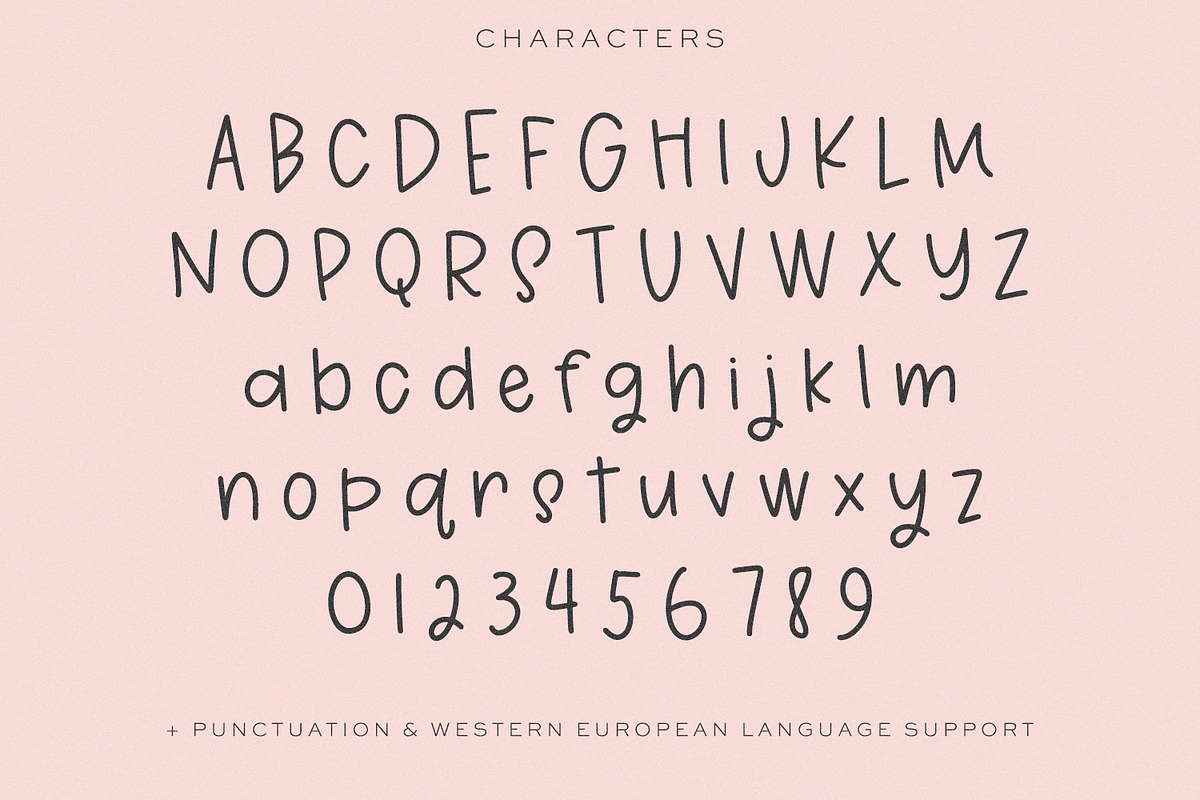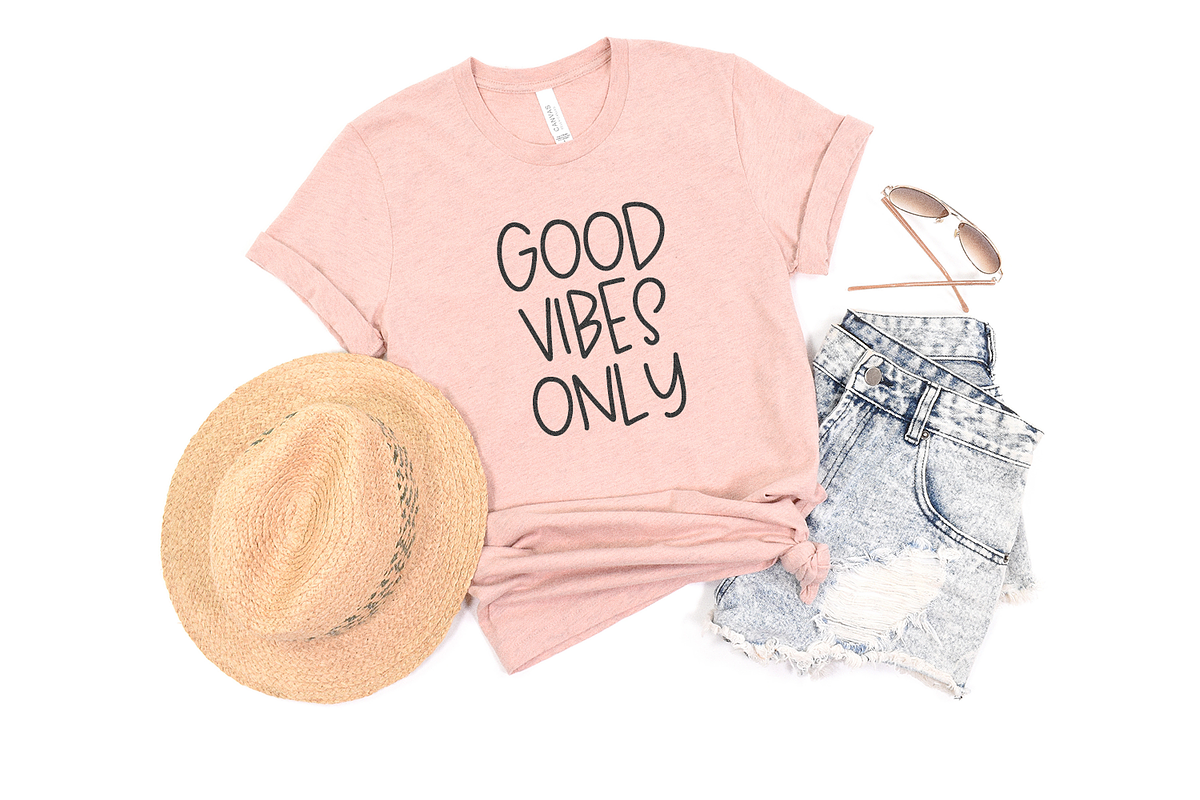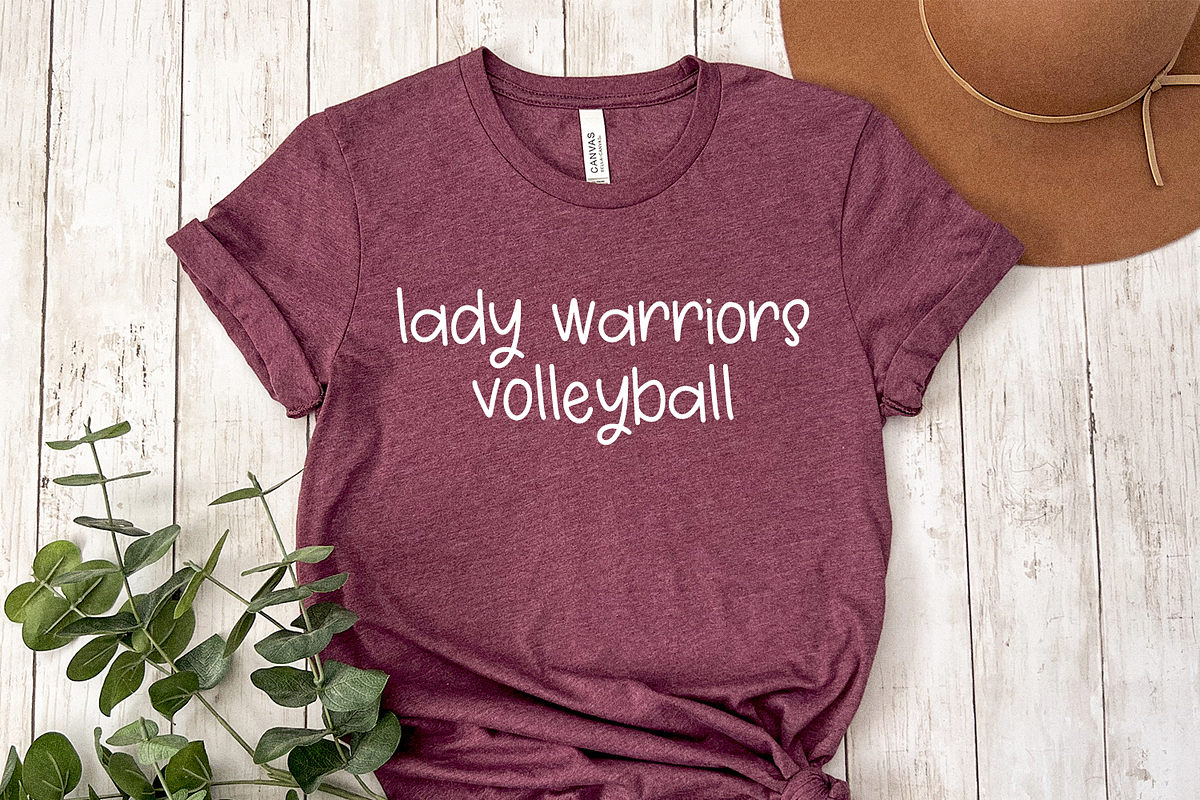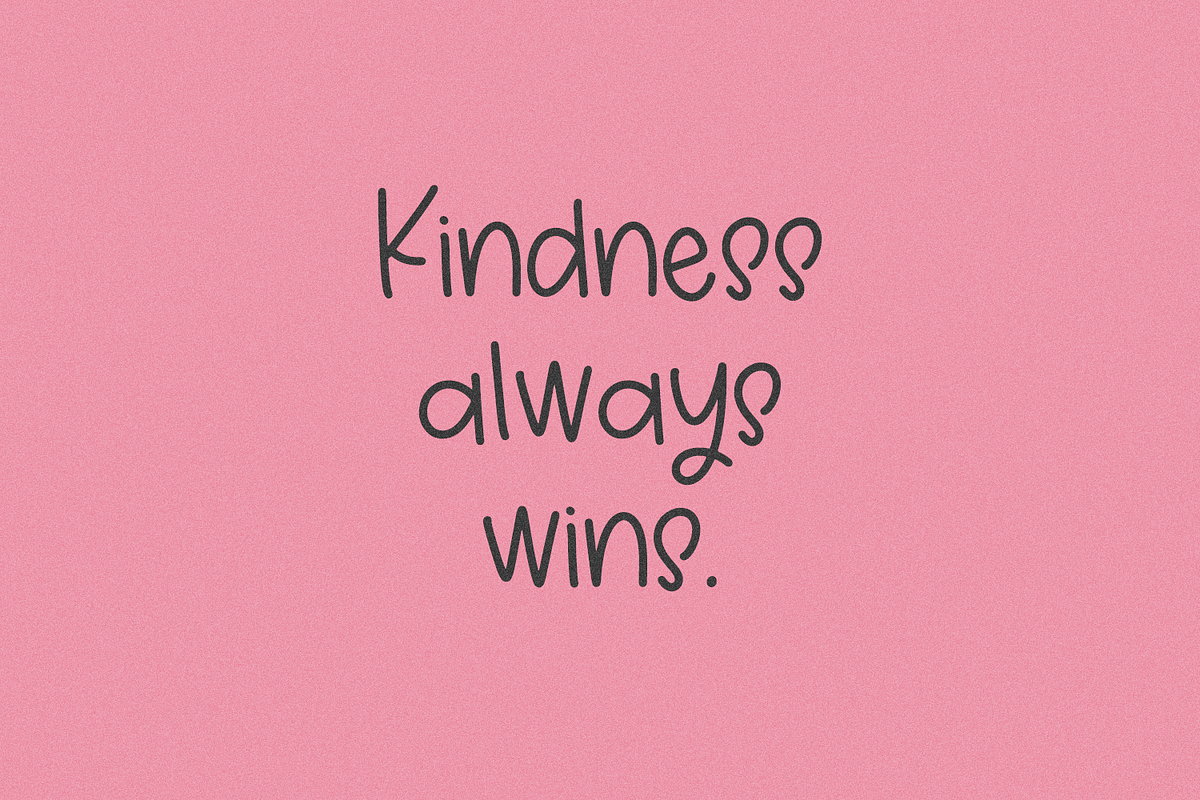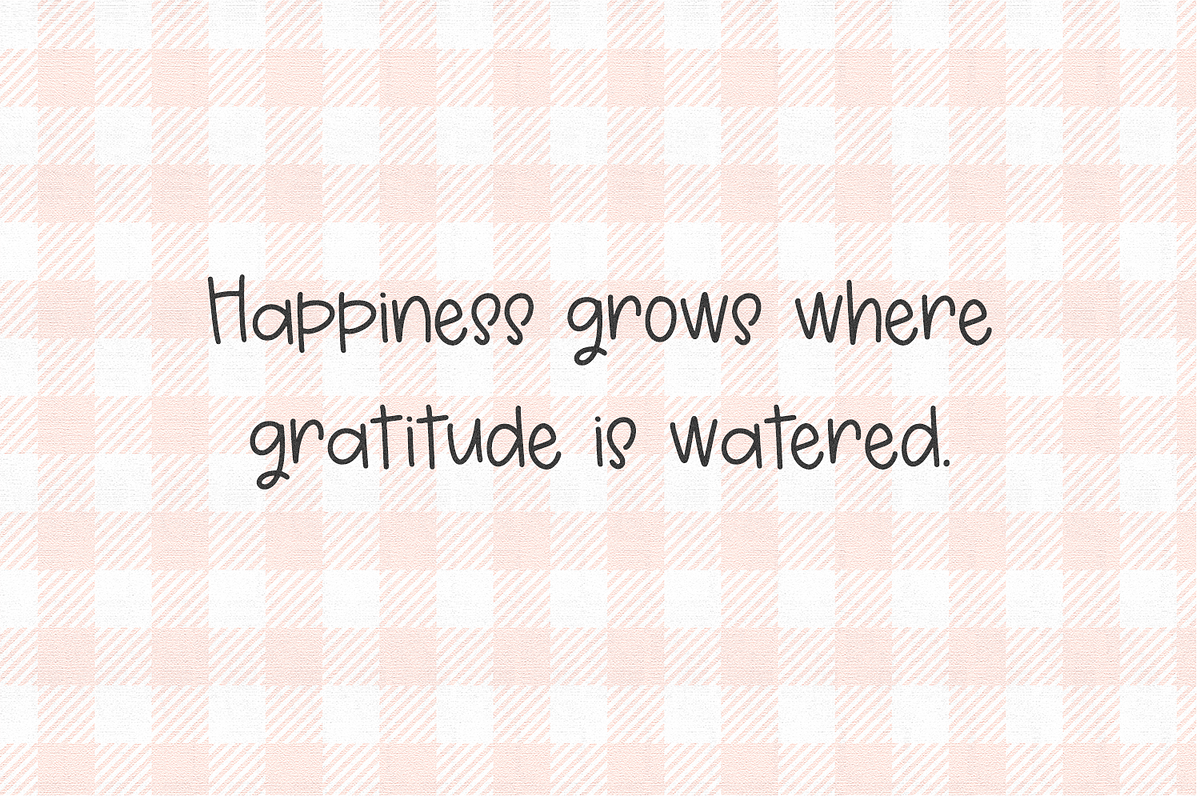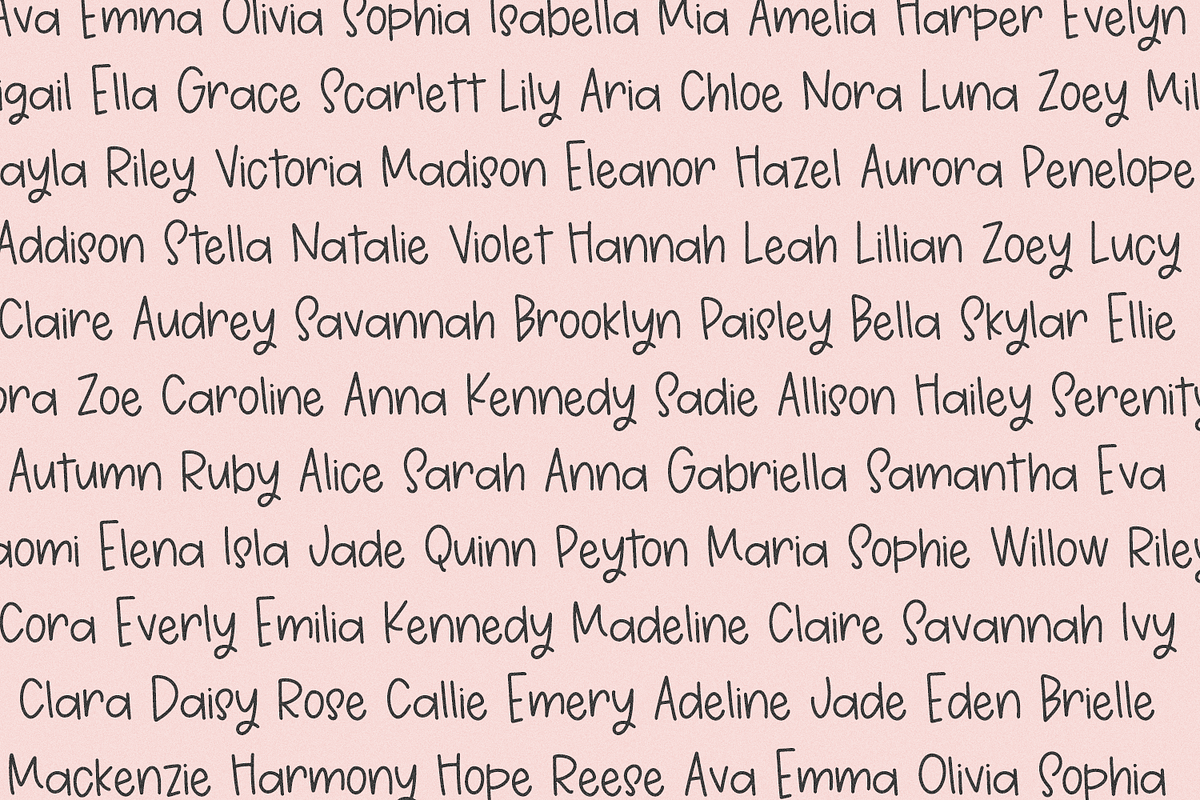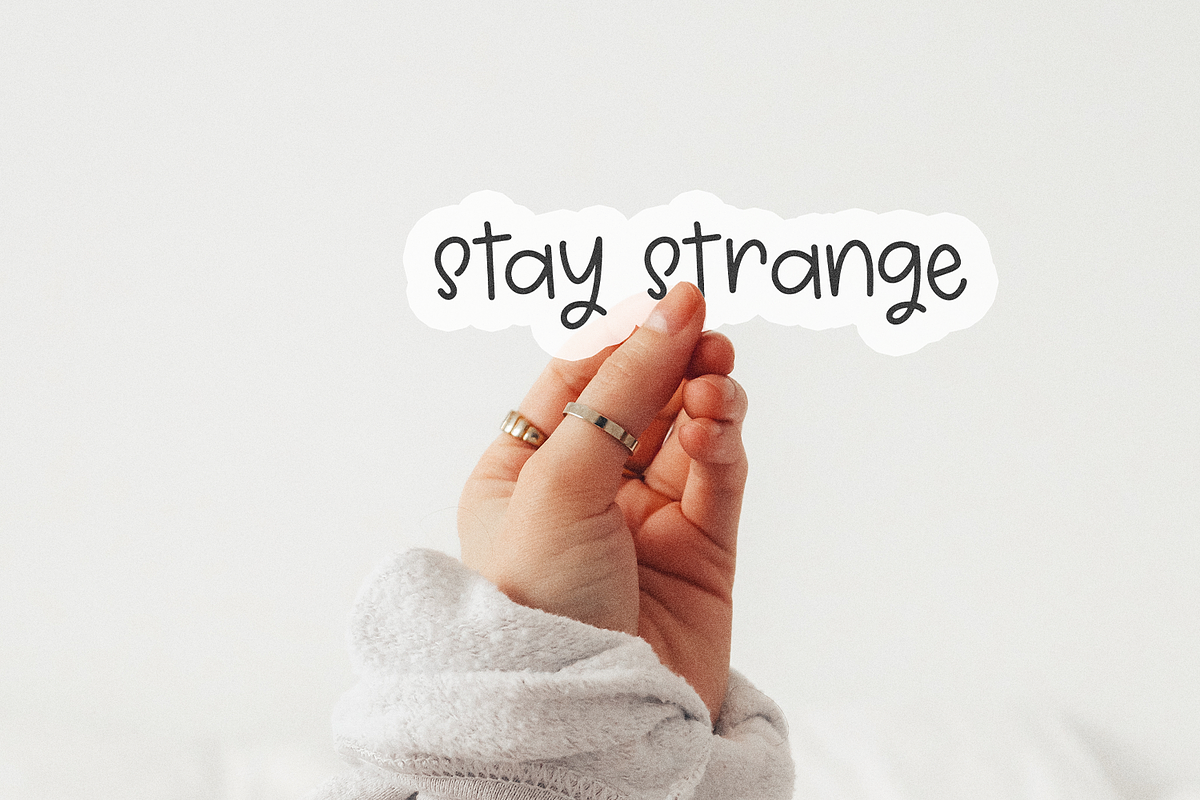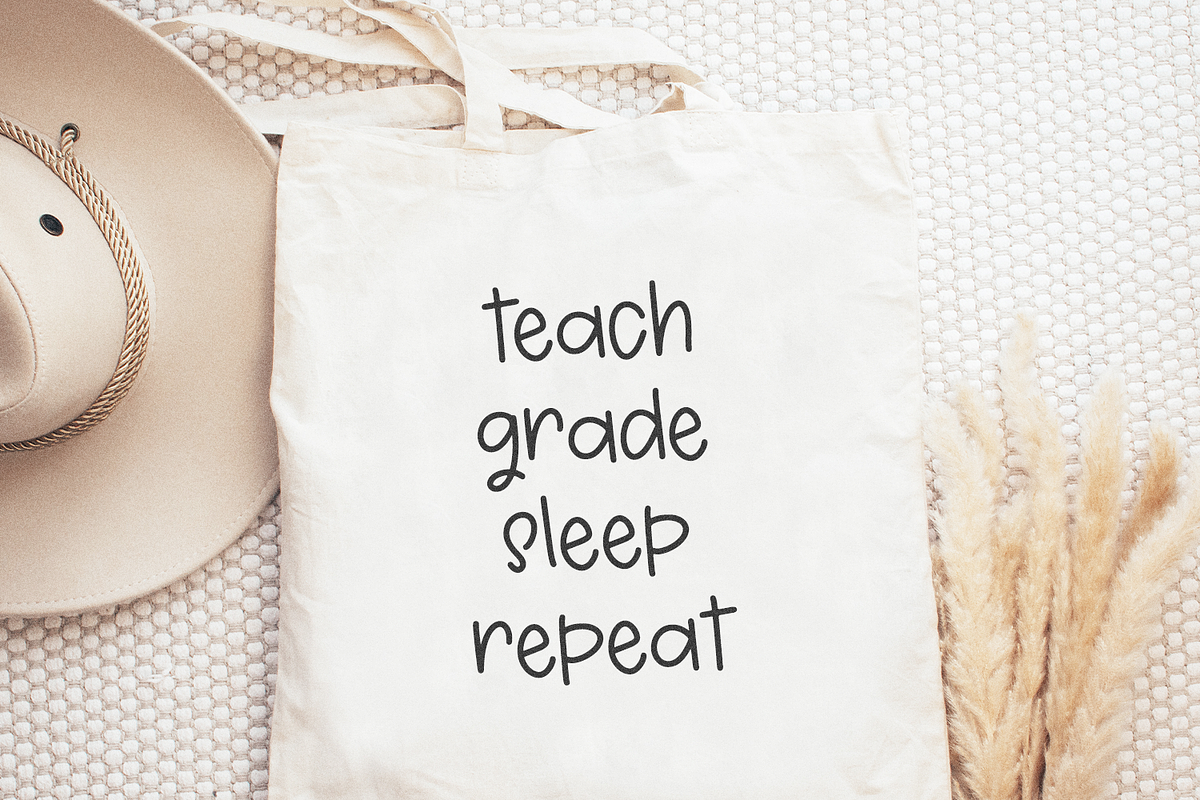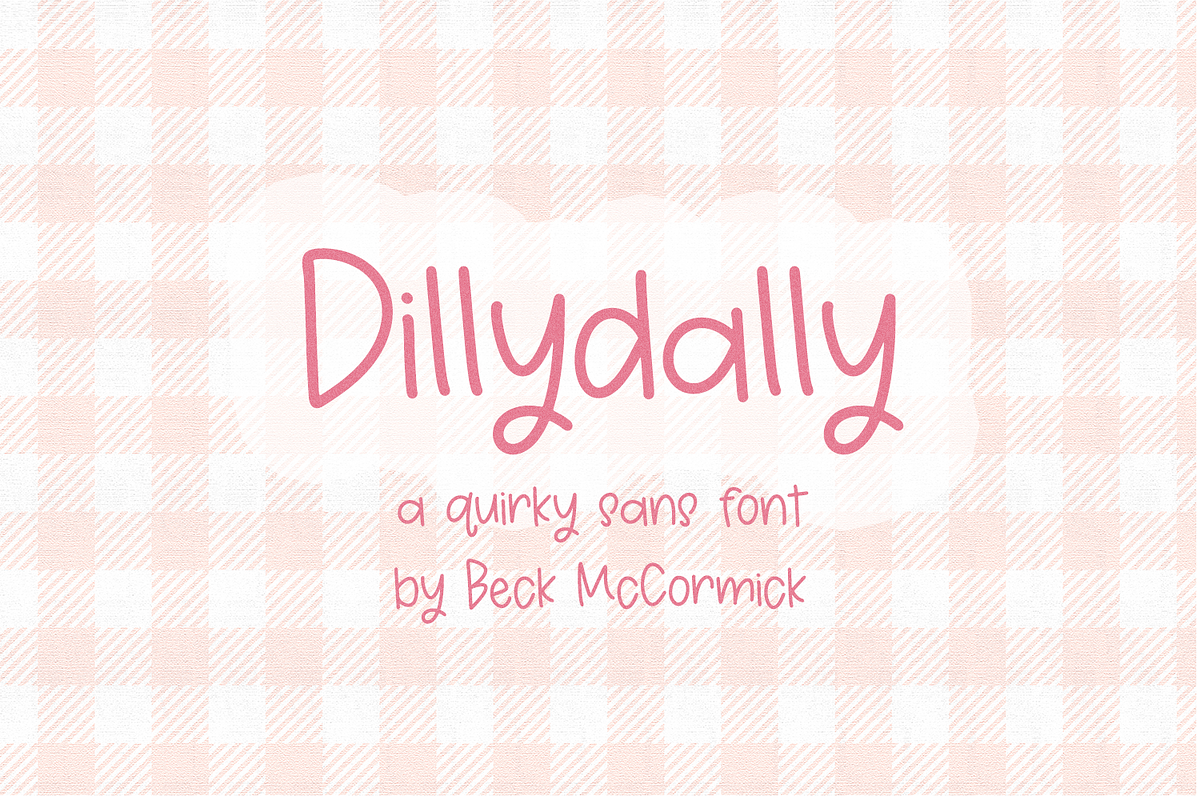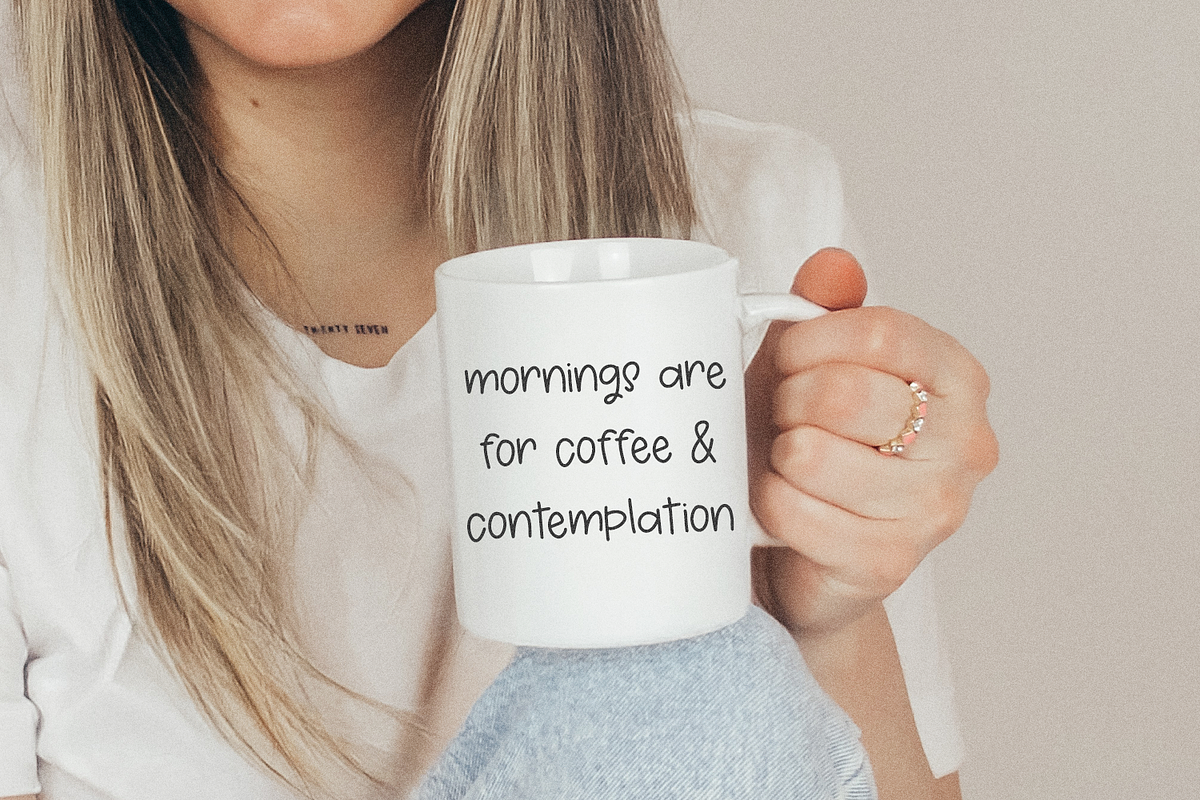
Dillydally Handwritten Sans
Dillydally Sans is an adorable handwritten sans font. This font is neat & tidy with a little bouncy cuteness. Dillydally Sans is perfect for logos & branding, greeting cards, painted banners, digital planners, note-taking apps, Canva, Cricut projects, Silhouette projects, designing SVG files, laser cutting projects, & more.